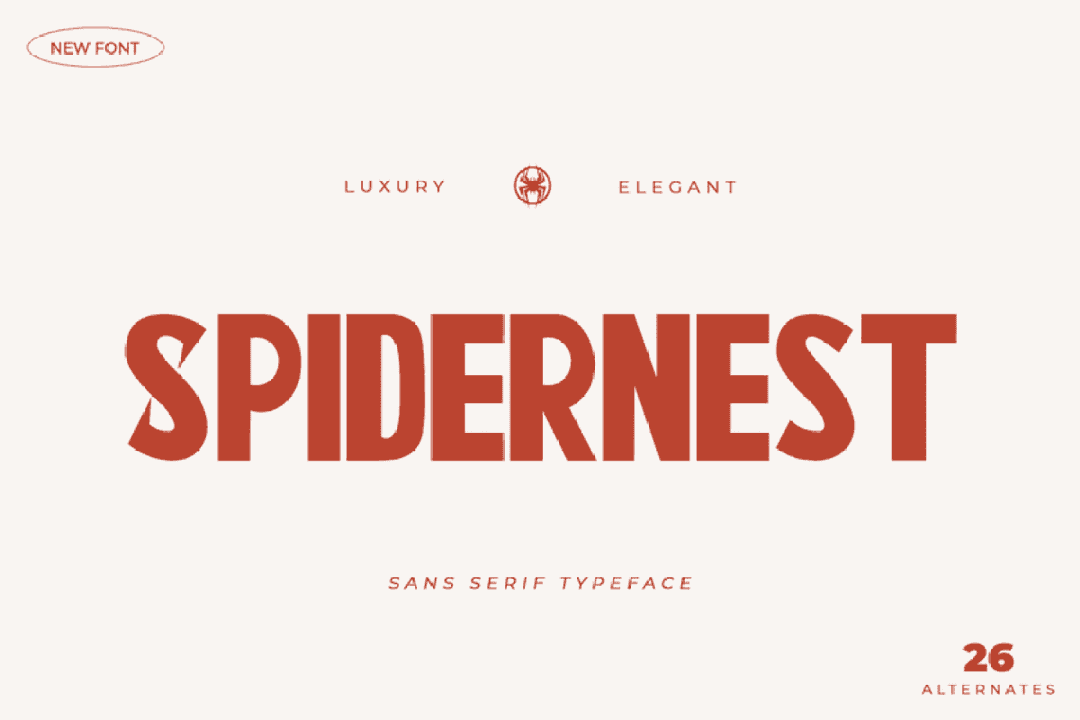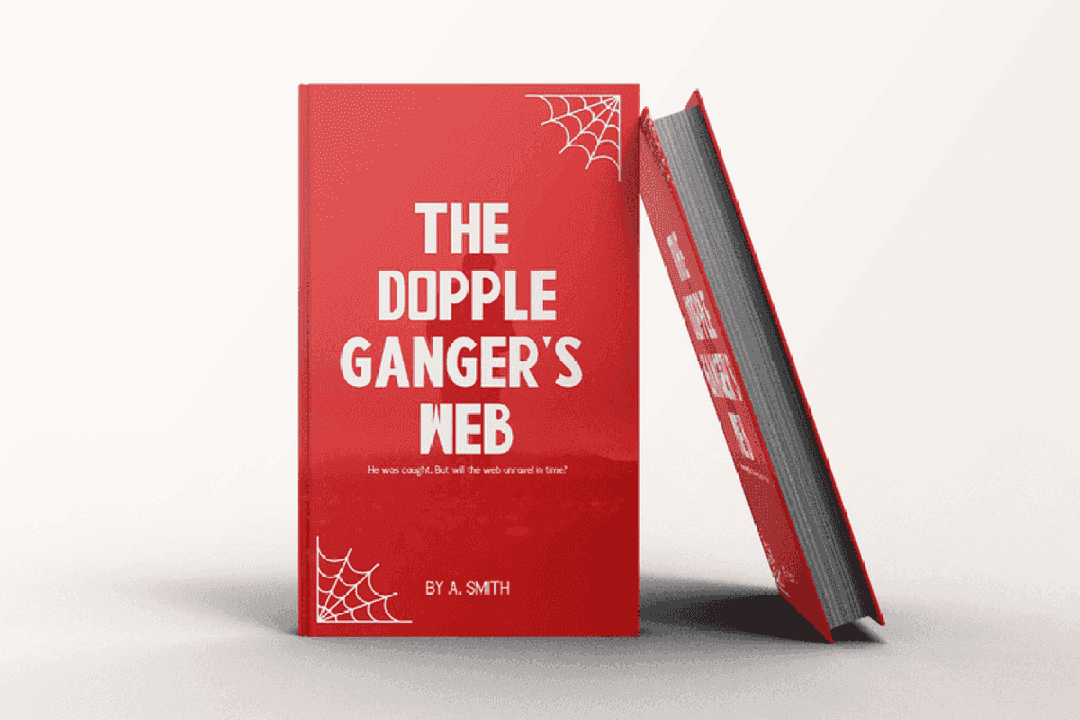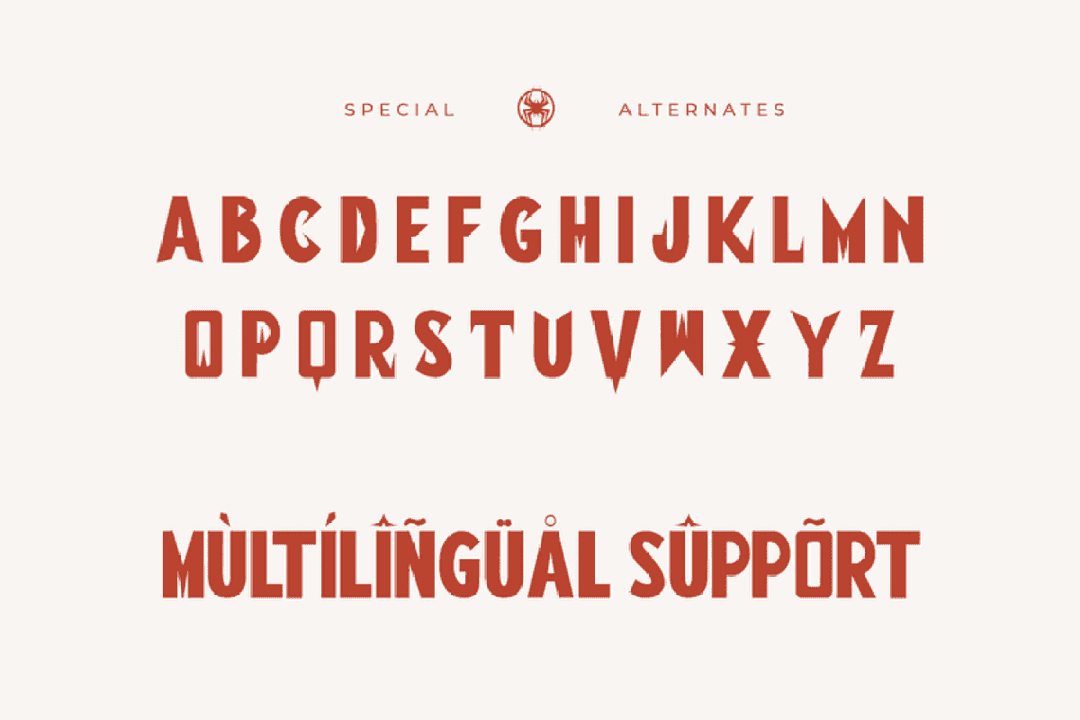
Spidernest font is an eye-catching sans-serif style font. Take note of its stylish appearance and incorporate it in your designs for an innovative appearance. Ideal applications of this font are film titles and magazines, greeting cards, posters social media accounts, letters t-shirt designs as well as quote logo clothing advertising or packaging projects.